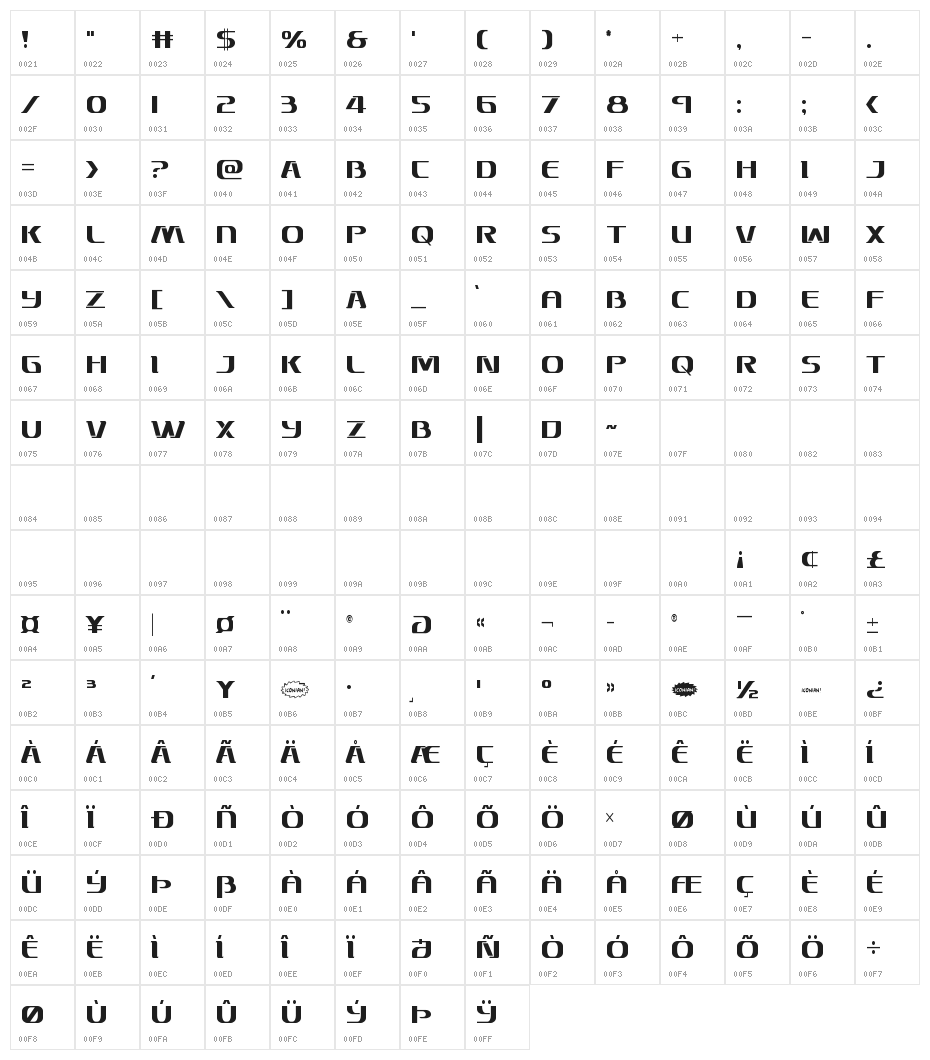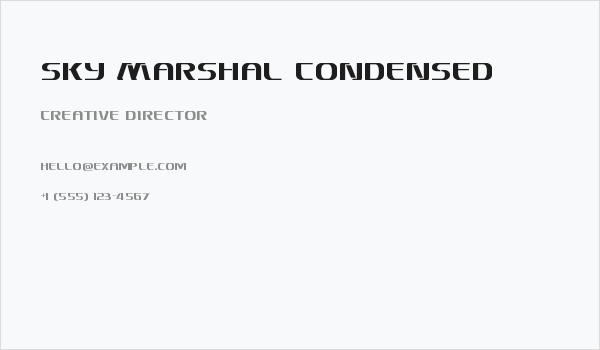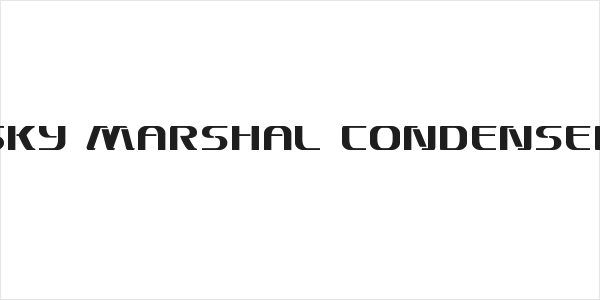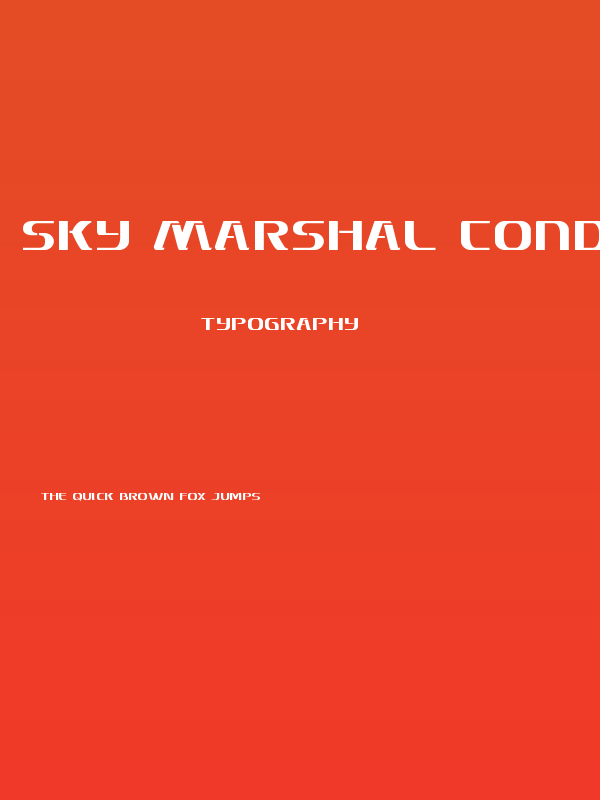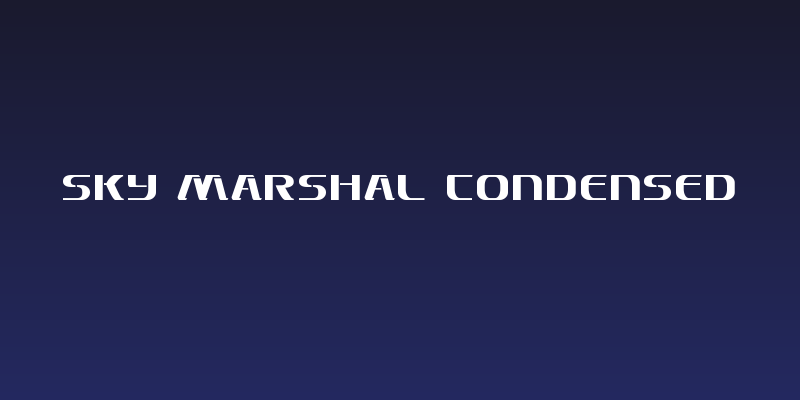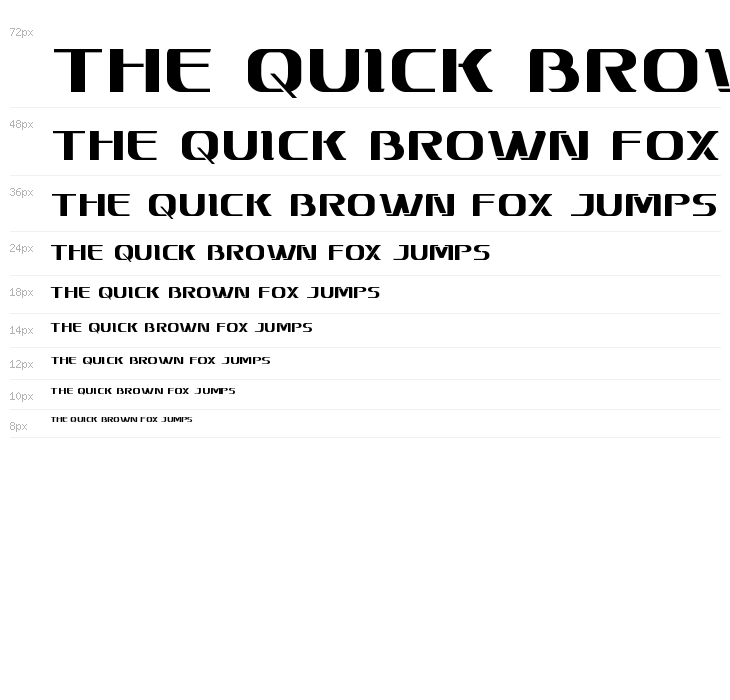
Sky Marshal Condensed Font
Sky Marshal Condensed Description
This font features a futuristic and angular design, characterized by sharp edges and a condensed structure. The uppercase letters exhibit a strong geometric influence, with consistent stroke widths that give it a bold and impactful appearance. The numerals and special characters maintain this angular style, ensuring a cohesive look across all characters. The overall design is sleek and modern, making it suitable for projects that require a contemporary and edgy aesthetic.
| Proposed Projects | Ideal for sci-fi themed posters, video game titles, tech branding, and modern advertising campaigns. |